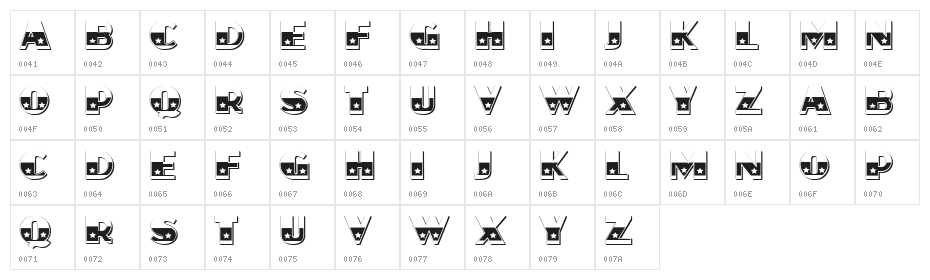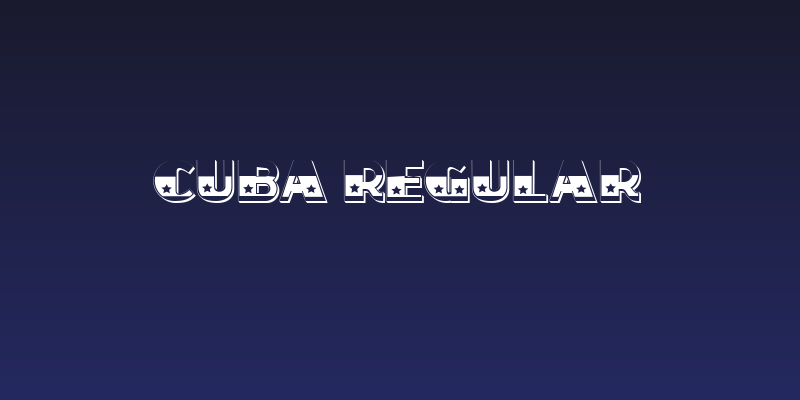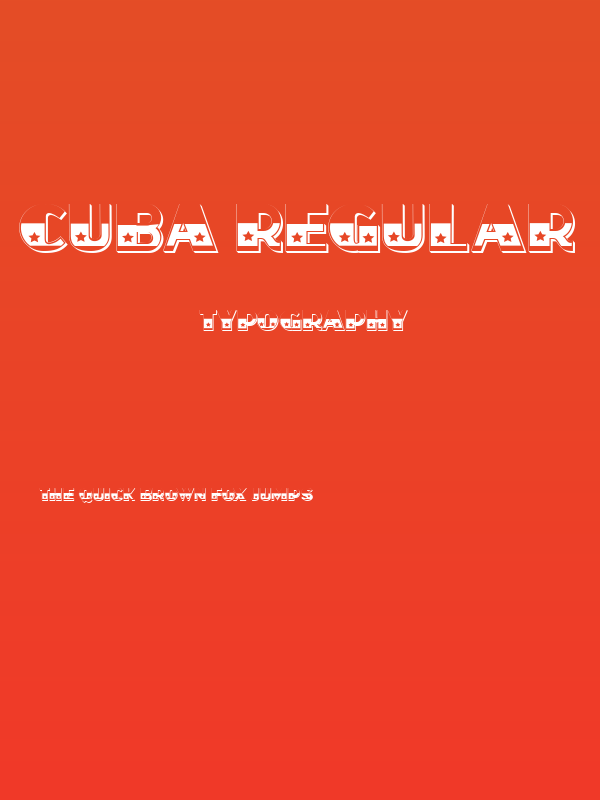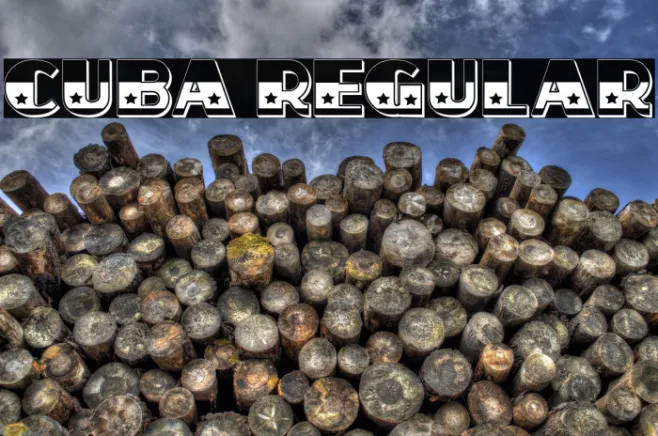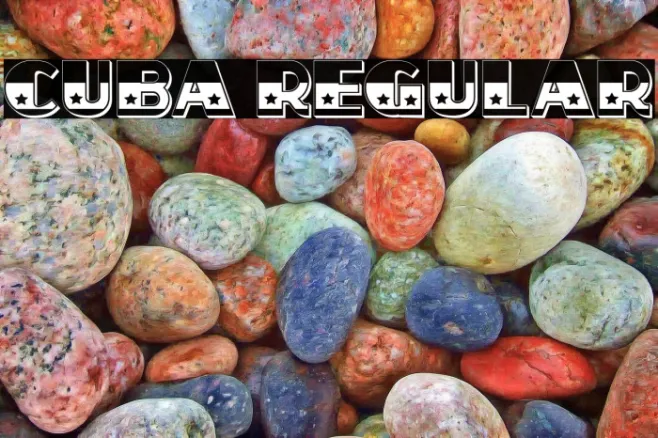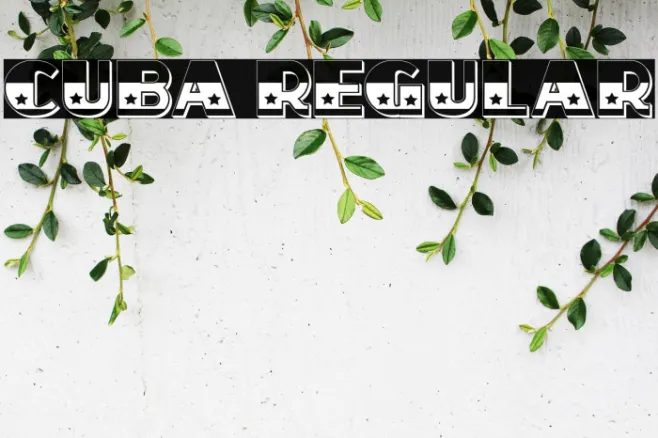
Cuba Regular Font
Cuba Regular Description
This font features a bold, decorative style with a unique star pattern embedded within each character. The letters are uppercase and have a three-dimensional effect, giving them a striking appearance. The design incorporates a strong contrast between the black fill and white outlines, enhancing the visual impact. The stars within the letters add a playful and patriotic touch, making it suitable for themed designs. The overall look is dynamic and eye-catching, perfect for projects that require a bold statement.
| Proposed Projects | Ideal for posters, banners, event invitations, and themed merchandise. |